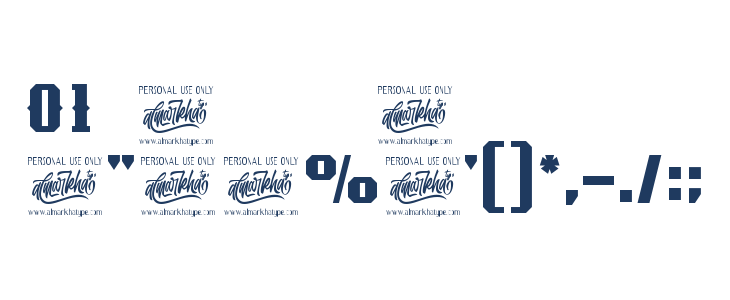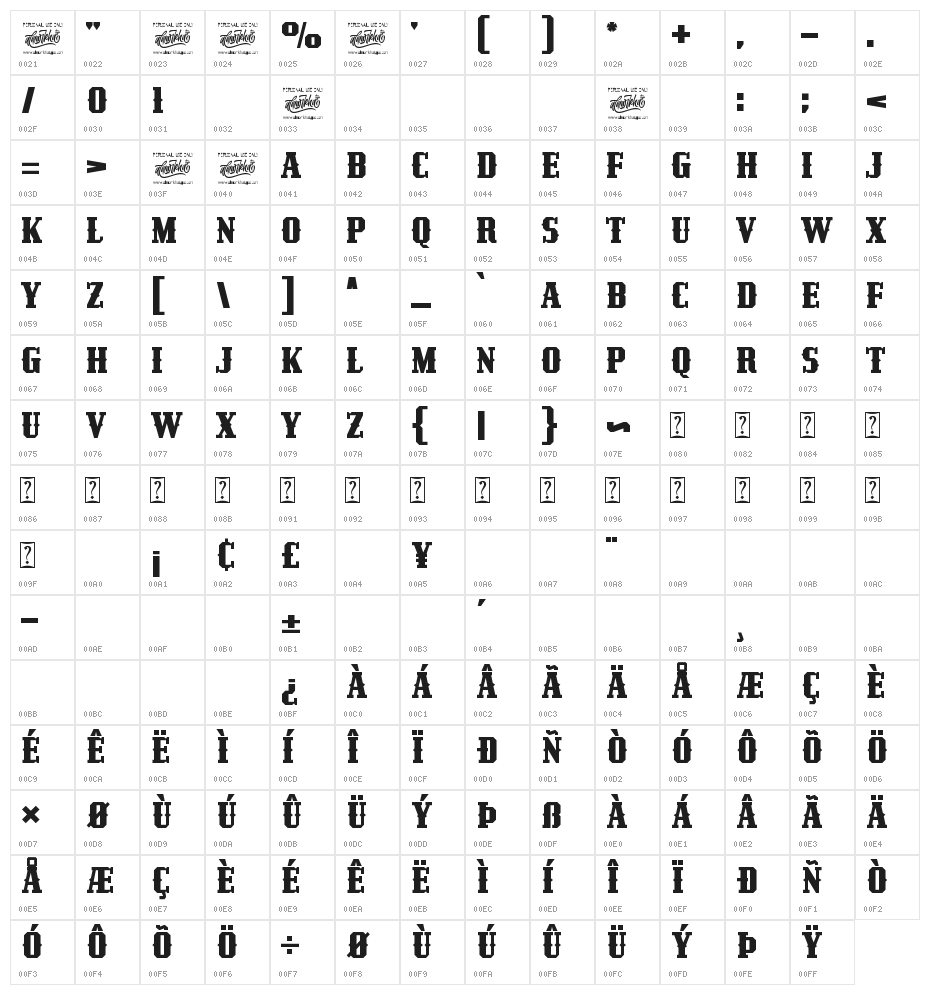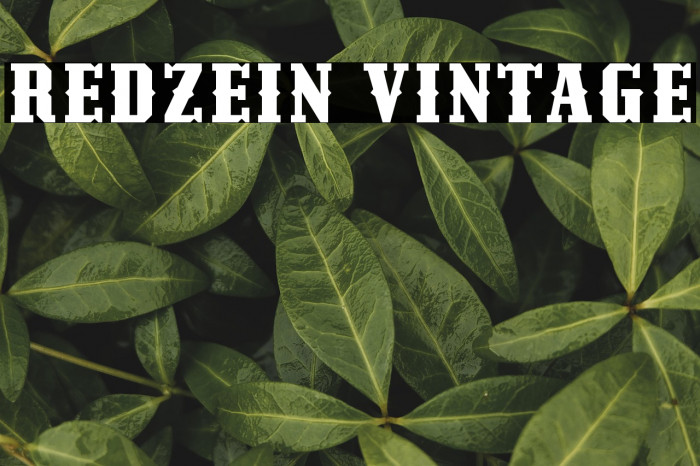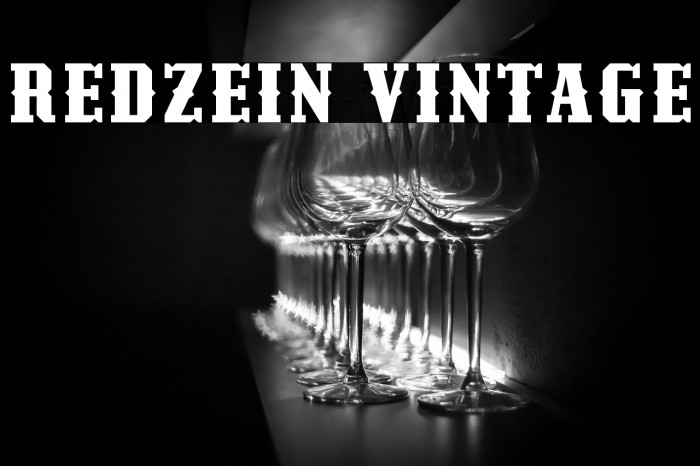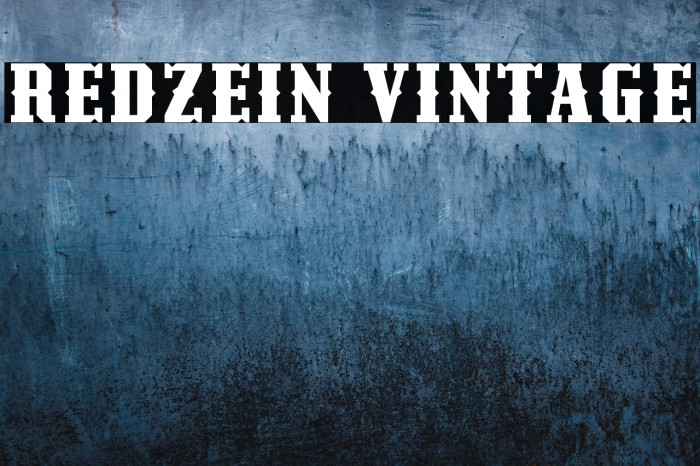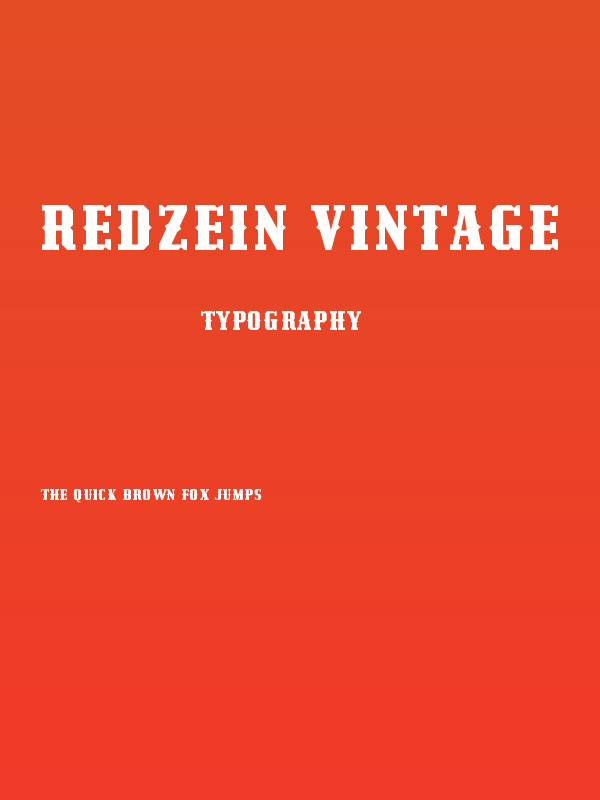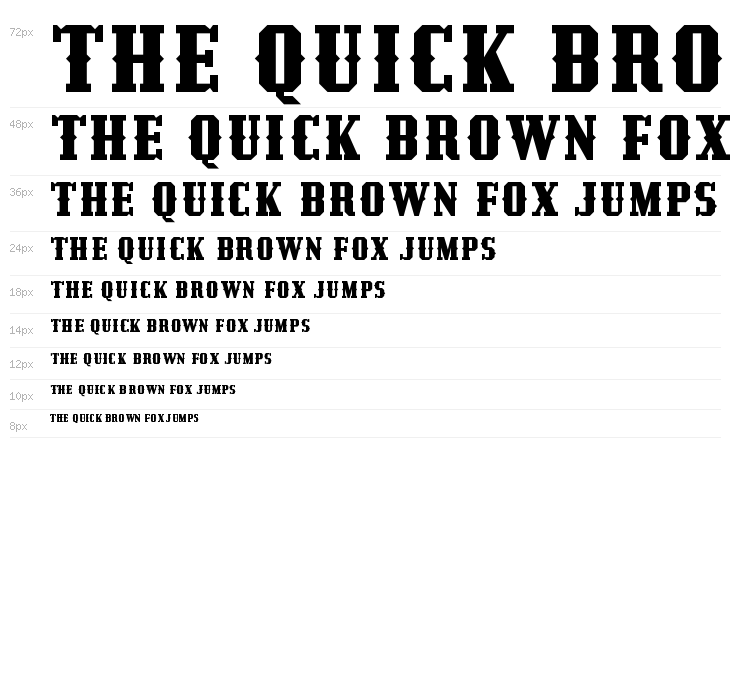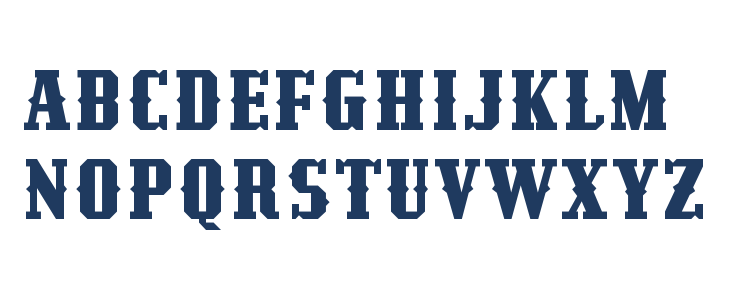
Redzein Vintage Font
Redzein Vintage Description
This font features a bold, vintage style with a strong presence. The uppercase letters are characterized by thick, block-like serifs and a slightly condensed form, giving them a robust and authoritative appearance. The numbers and special characters maintain this boldness, ensuring consistency across all glyphs. The design is reminiscent of old western or vintage poster typography, making it ideal for projects that require a touch of nostalgia or a strong visual impact. The overall style is decorative, with a focus on creating a striking visual statement.
| Proposed Projects | Ideal for vintage-themed posters, logos, branding, and headlines that require a bold and nostalgic touch. |